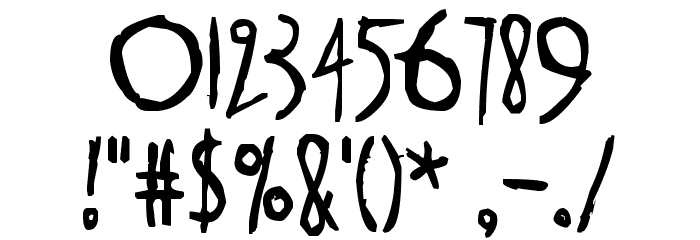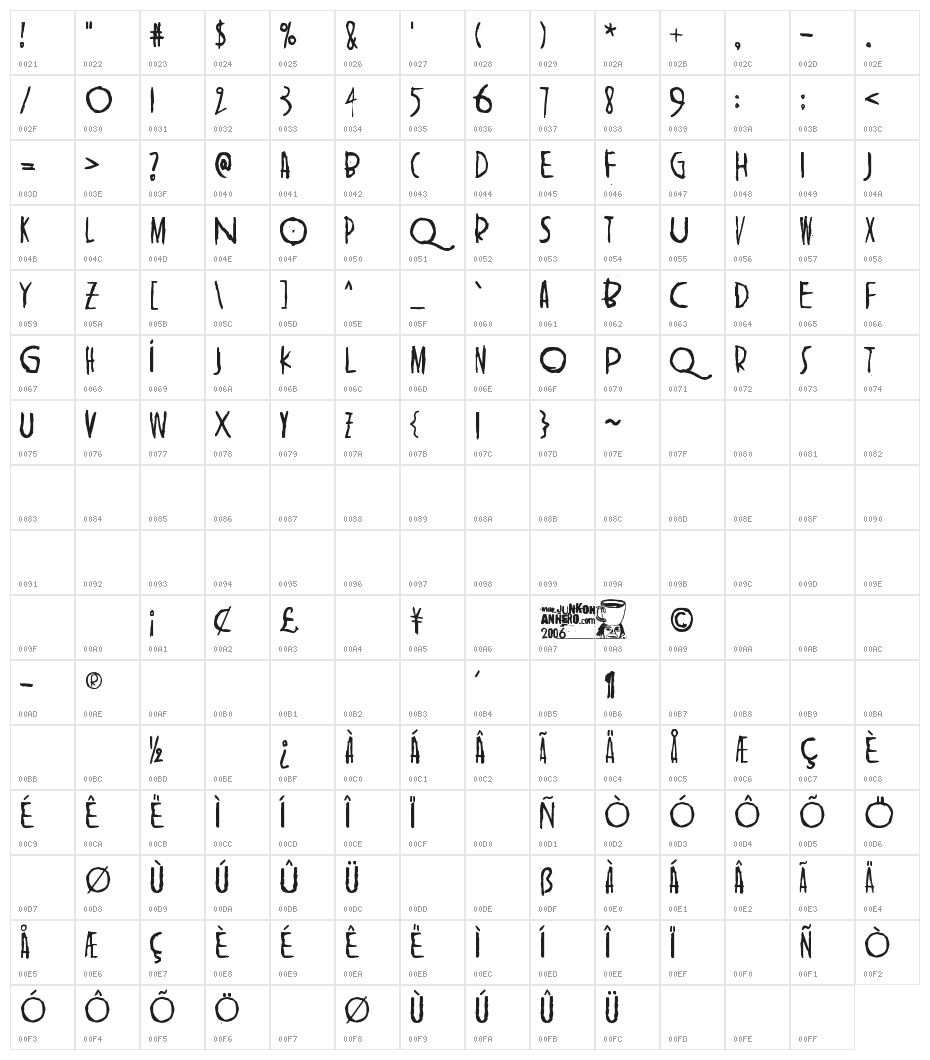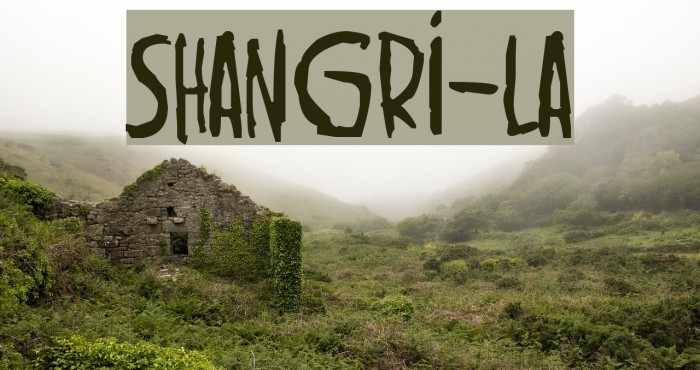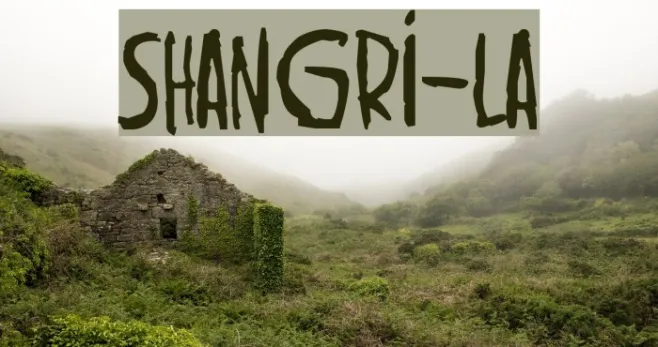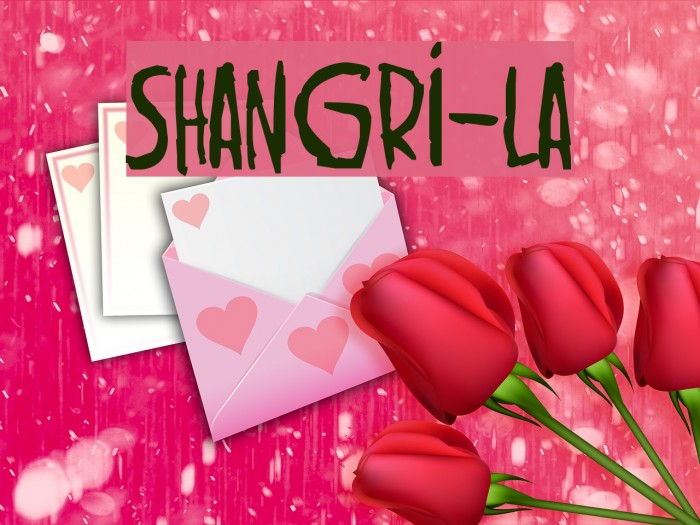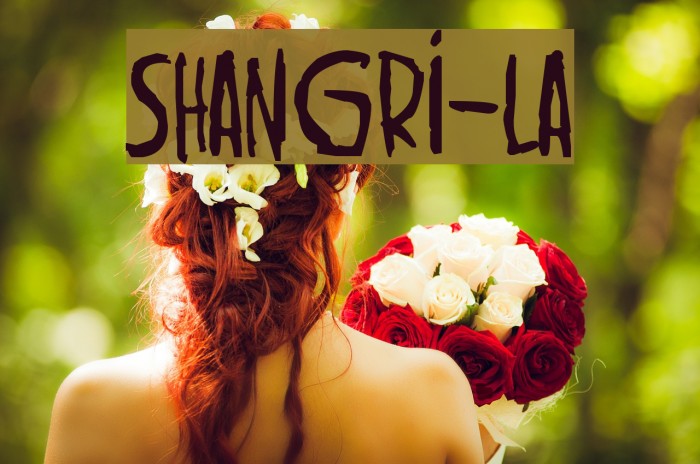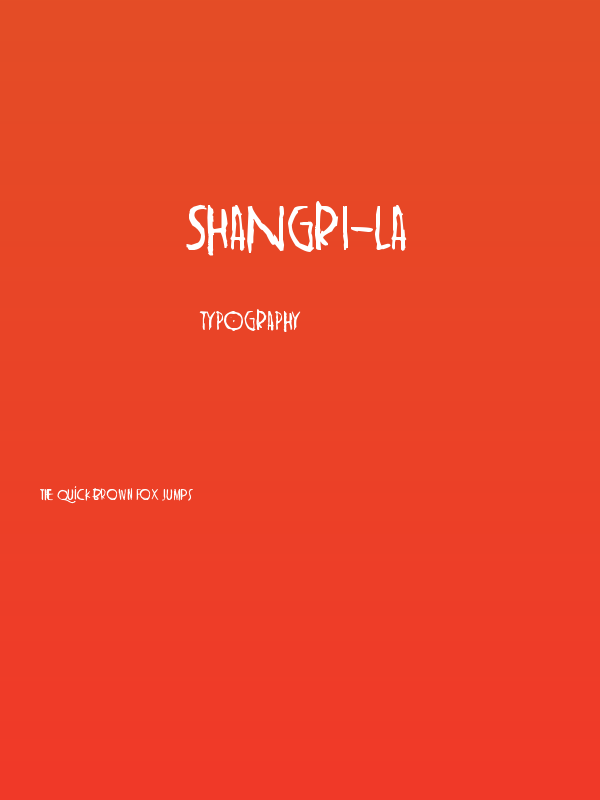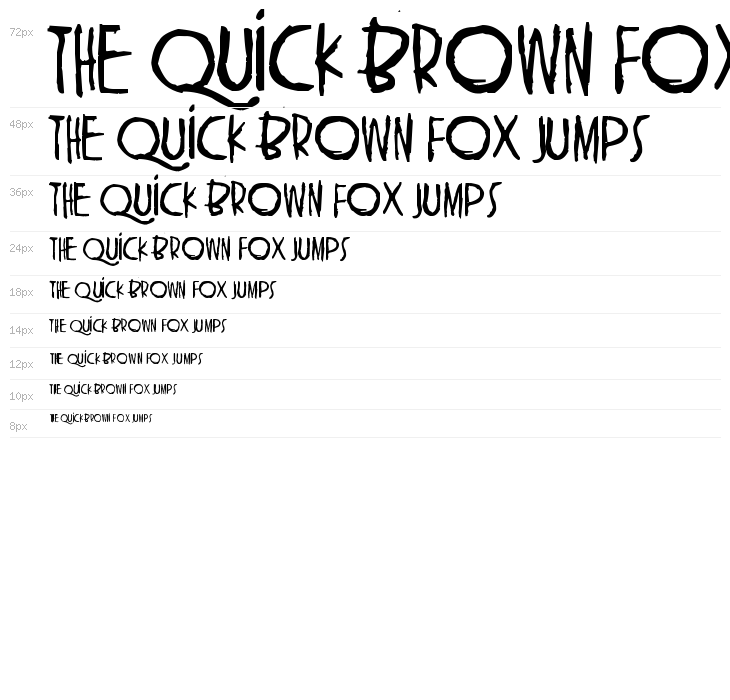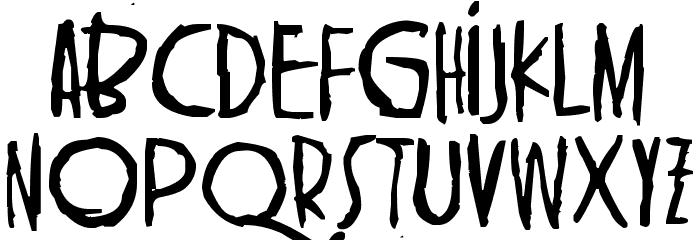
Shangri-La Font
Shangri-La Description
This font exhibits a unique, hand-drawn style with a slightly irregular and organic appearance. The characters are bold and expressive, featuring uneven strokes that give it a dynamic and lively feel. The uppercase letters are tall and narrow, while the lowercase letters maintain a consistent height, creating a cohesive look. Numbers and special characters follow the same artistic style, enhancing the overall aesthetic. The font's rough edges and varying line thickness contribute to its informal and artistic vibe, making it suitable for creative and unconventional projects.
| Proposed Projects | Ideal for artistic projects, posters, album covers, and creative branding. |